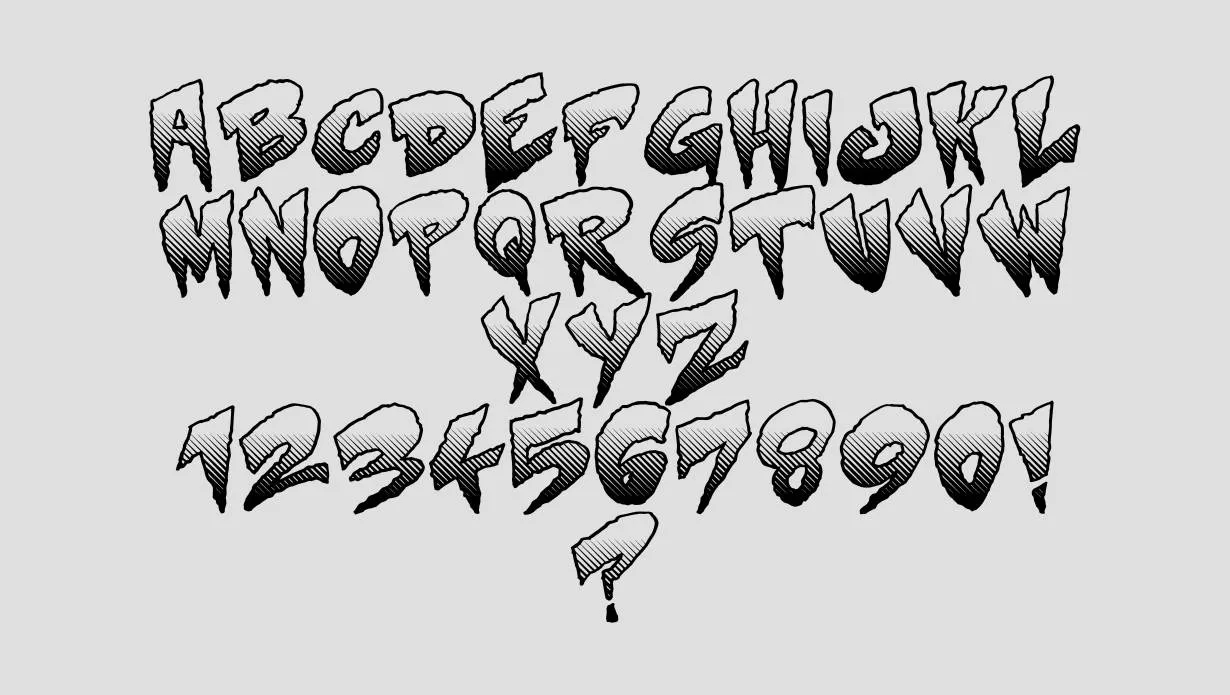
Mysterious Font adds an air of intrigue and curiosity to your designs. Its unique and enigmatic style is perfect for mystery novels, suspenseful book covers, and any projects that require an element of suspense and surprise.
If you want to keep your audience guessing, Mysterious Font is the key.
You can combine it with It includes a comprehensive set of characters, encompassing uppercase and lowercase letters, numerals, punctuation, and various special characters.